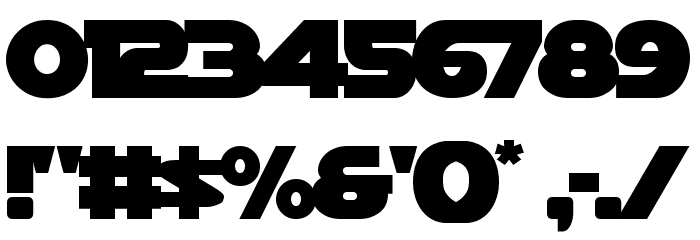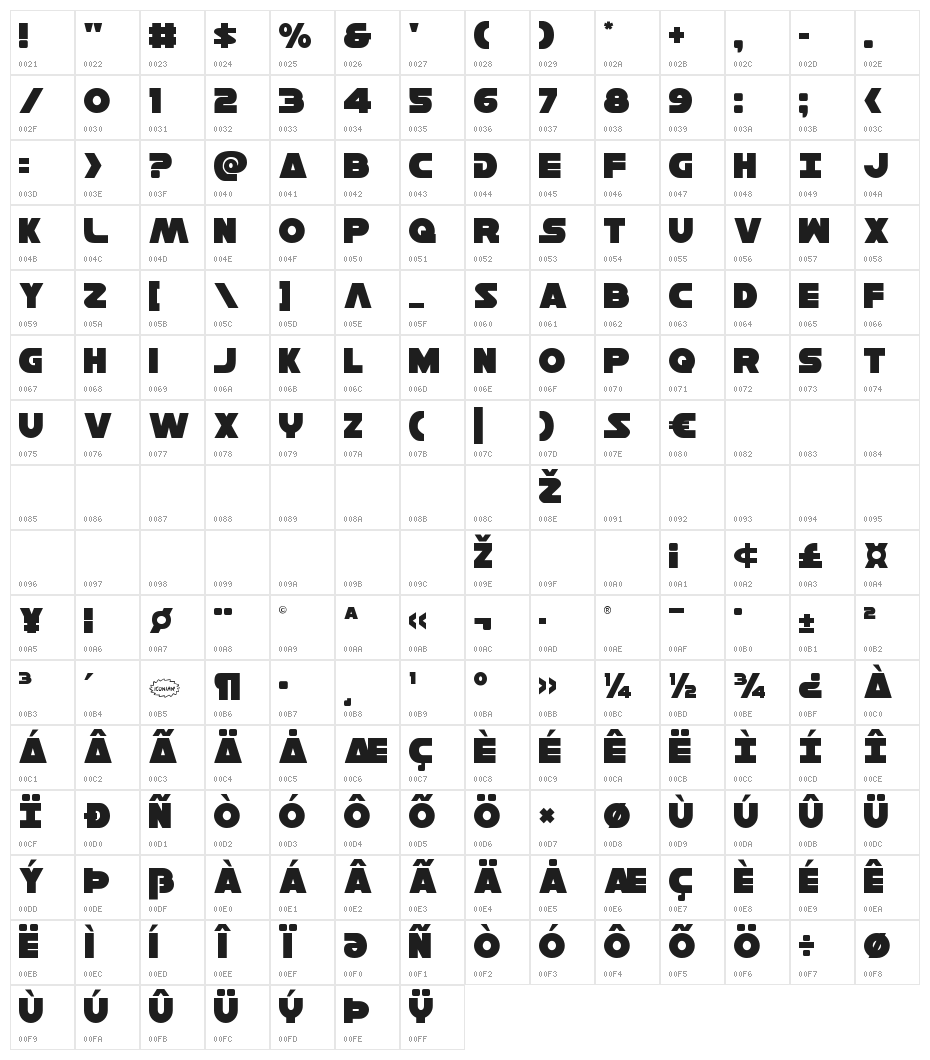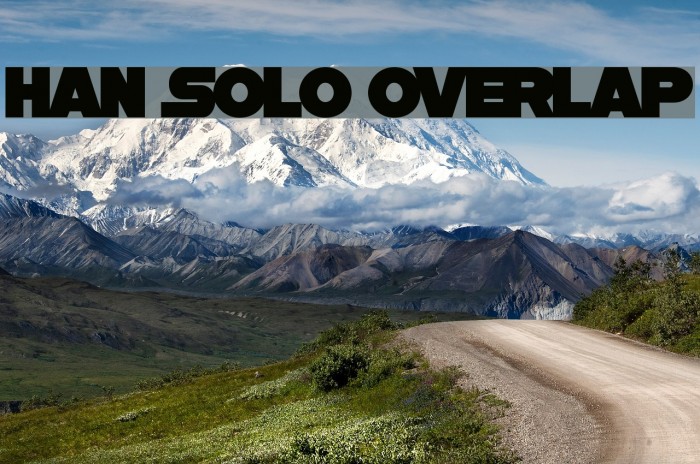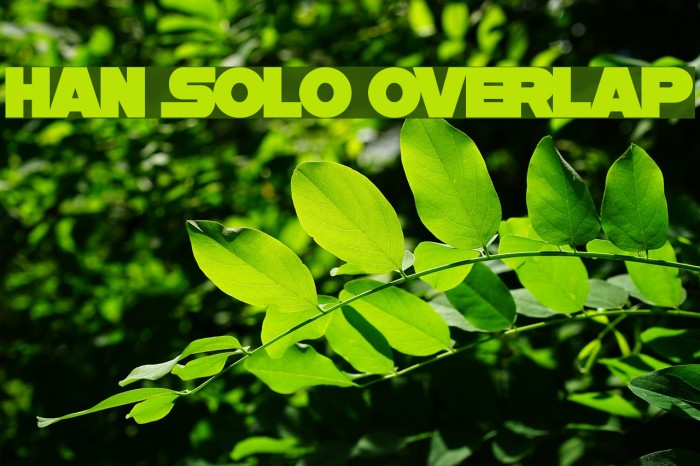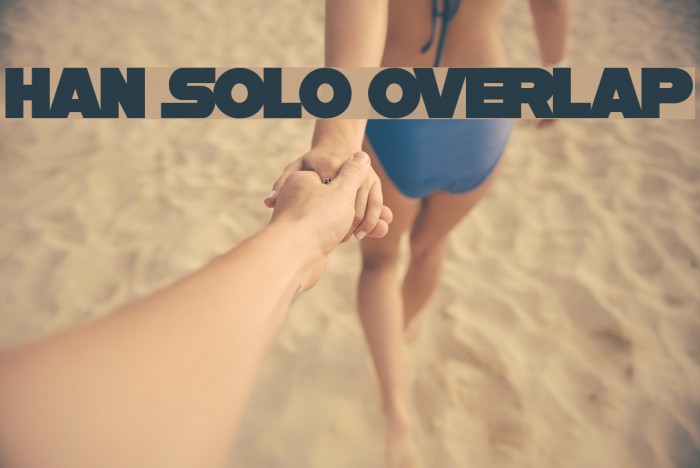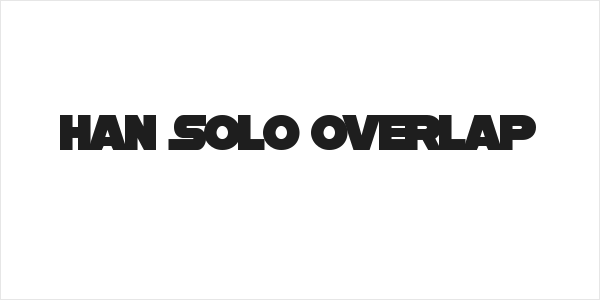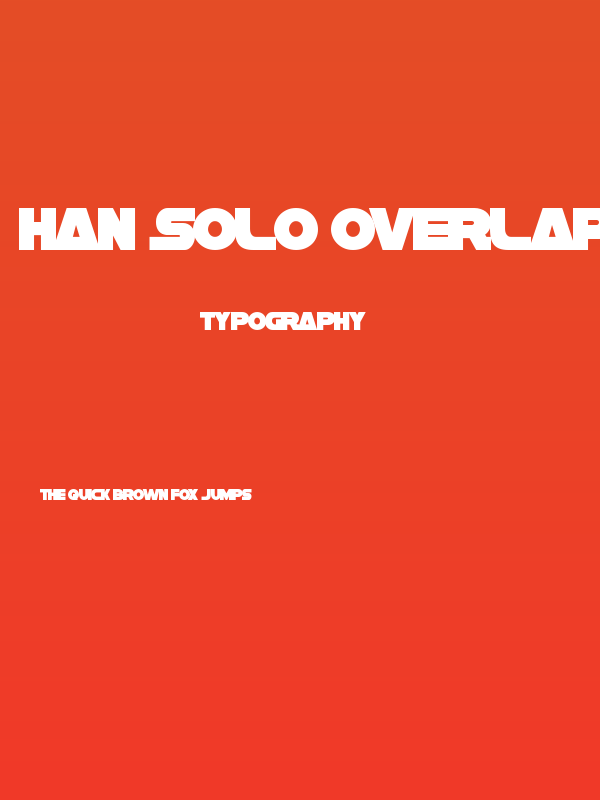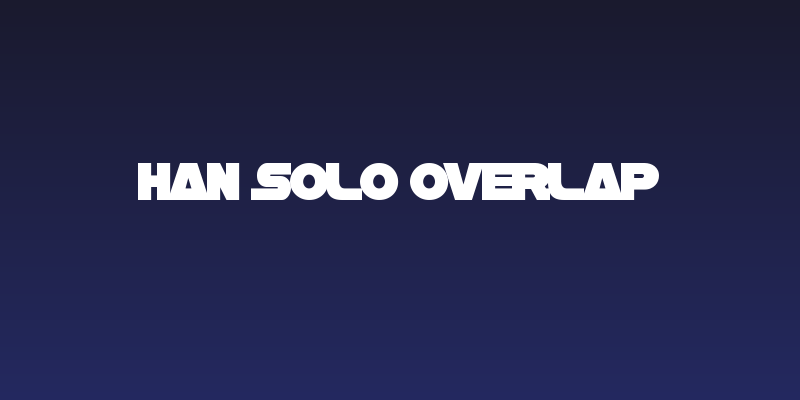
Han Solo Overlap Font
Han Solo Overlap Description
This font features a bold, futuristic design with strong geometric shapes and a distinct overlap effect on certain characters. The uppercase letters are particularly striking, with wide, blocky forms that convey a sense of strength and modernity. The numbers and special characters maintain this bold aesthetic, ensuring consistency across all glyphs. The design is highly stylized, making it suitable for projects that require a standout, attention-grabbing typeface. Its unique style is reminiscent of science fiction themes, making it ideal for creative and entertainment industries.
| Proposed Projects | Ideal for sci-fi themed posters, video game titles, and branding for tech companies. |